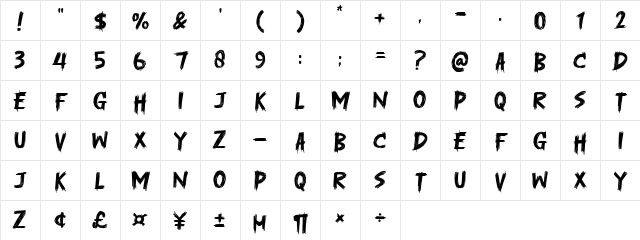
Death Spirit Regular Free Font
Death Spirit Regular
Foundry: Khurasan
Designer: Khurasan
Design Context for Death Spirit
Death Spirit carries an unsettling edge - its distorted letterforms are built to unsettle, perfectly suited to horror, Halloween, and dark creative work.
Font Pairing: Pair with a clean neutral sans-serif for body copy to let Death Spirit's character lead without overwhelming the composition.
Pro Tip: Use Death Spirit at larger display sizes for maximum impact. Consider generous tracking to let the disturbing character of each letterform breathe.